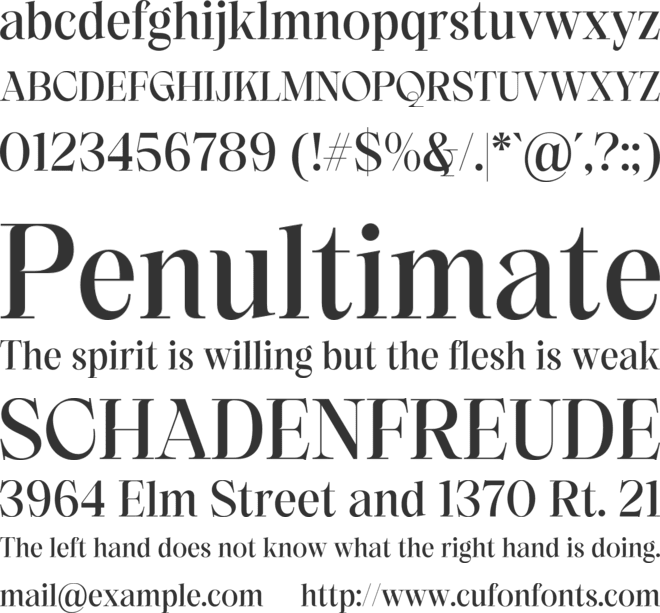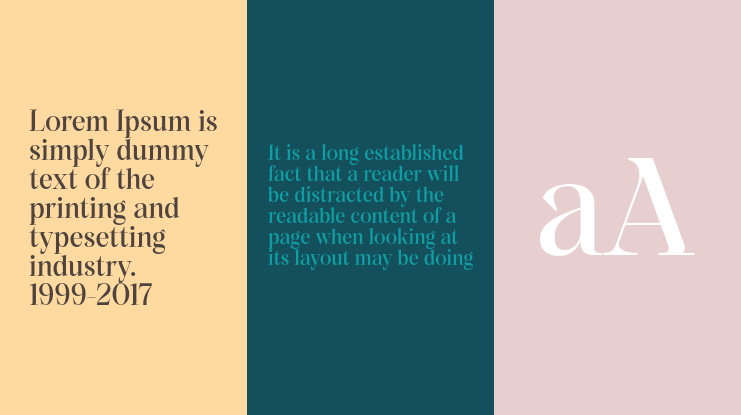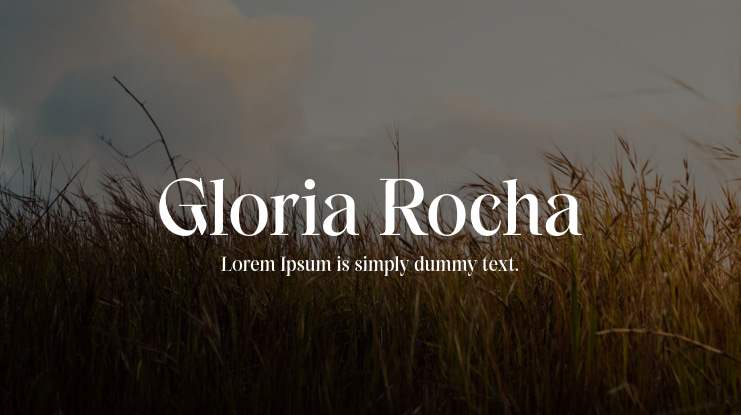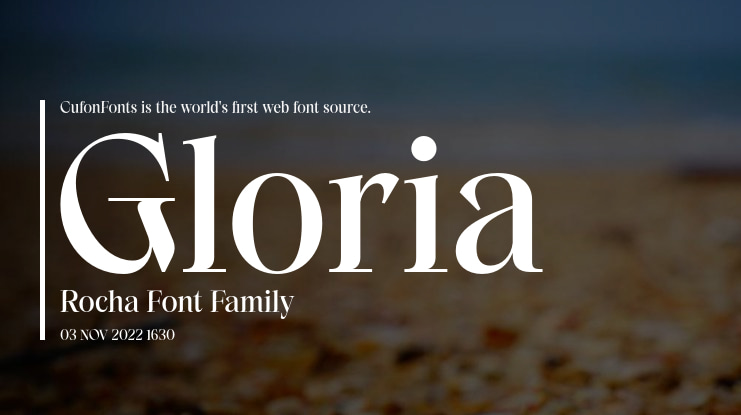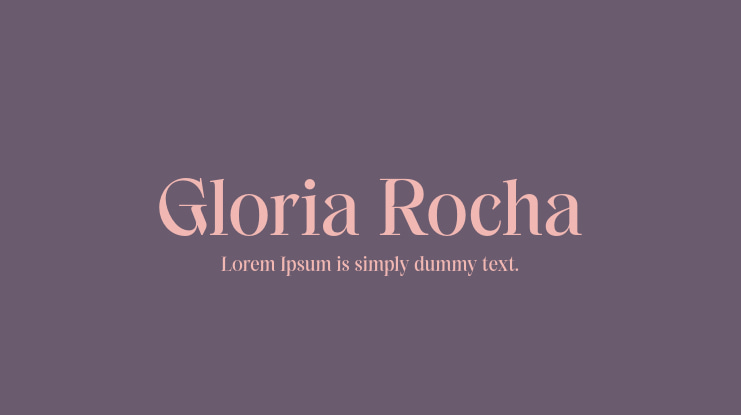
Introducing the Gloria Rocha Serif Font. Gloria Rocha embodies elegance and sophistication in the realm of typography. This exquisite serif font includes both regular and italic styles, enabling you to effortlessly convey sophistication in your designs. The font's allure is further enhanced by meticulously crafted ligatures and alternates, enriching its beauty and versatility. With Gloria Rocha, every project radiates an irresistible charm, making it the perfect choice for those seeking elegance with a touch of glamour.